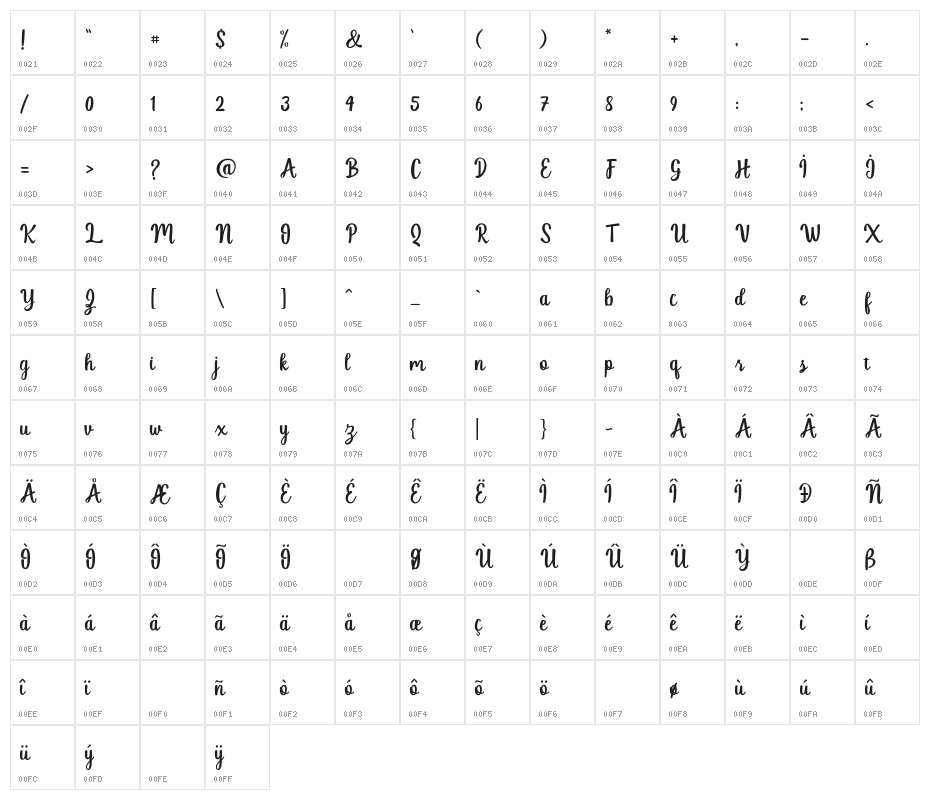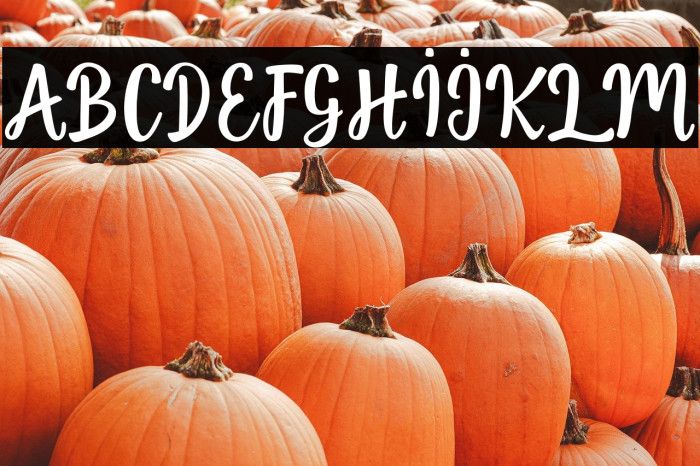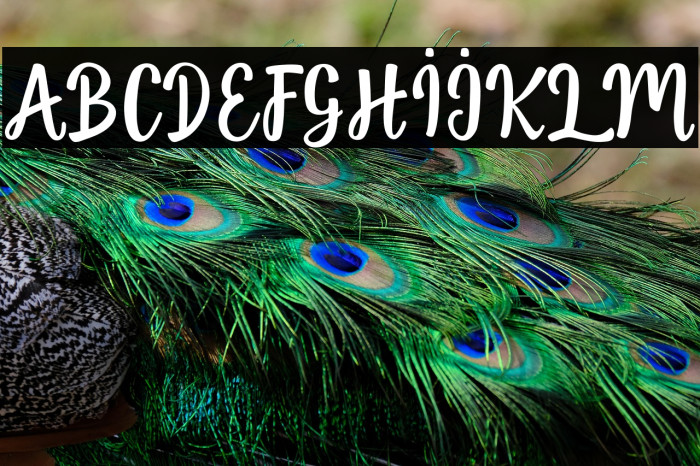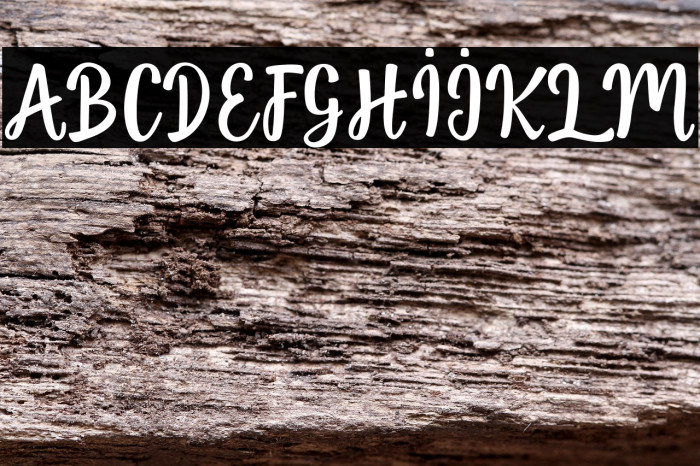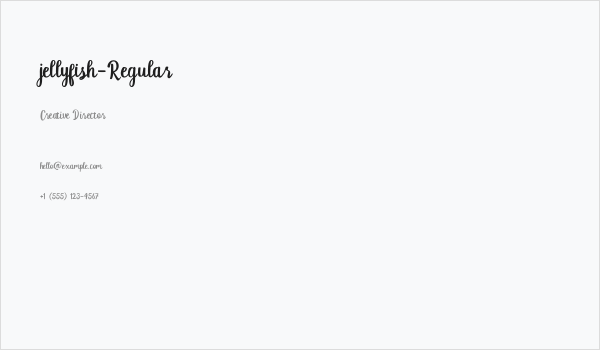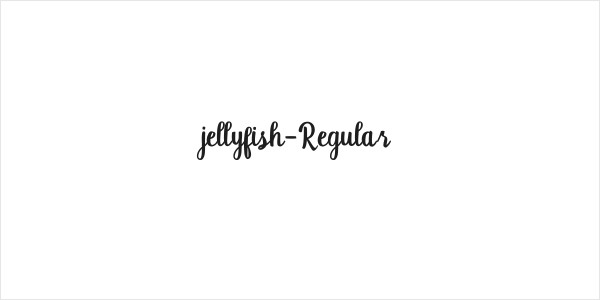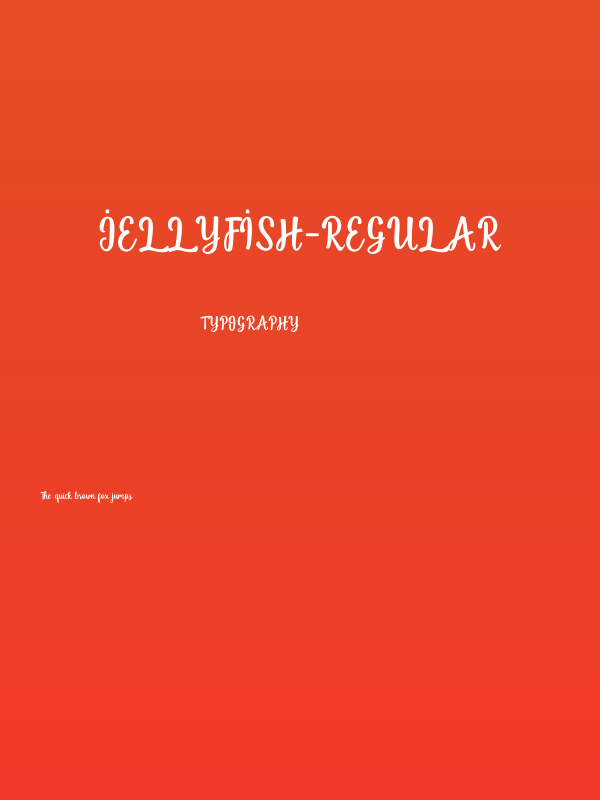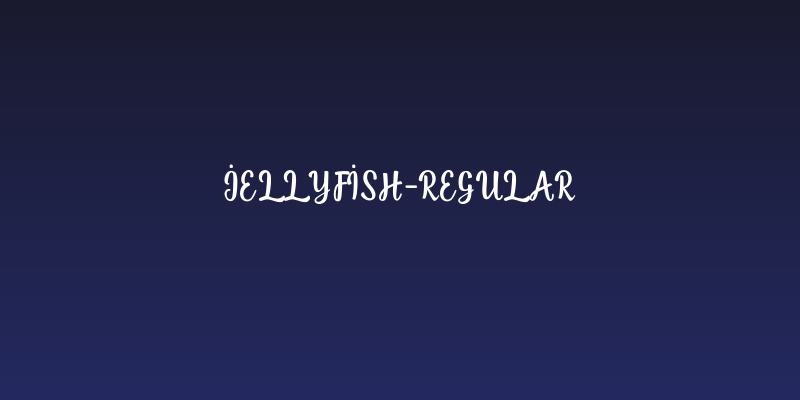
jellyfish-Regular Font
jellyfish-Regular Description
This font features a playful and flowing script style, characterized by its smooth curves and elegant loops. The uppercase letters are bold and expressive, with a slight slant that adds a dynamic feel. The lowercase letters maintain a consistent flow, enhancing readability while preserving the font's whimsical nature. Numbers and special characters are designed to complement the overall aesthetic, ensuring a cohesive look across different uses. The font's unique charm makes it suitable for creative projects that require a touch of personality and flair.
Use CaseLogos, Invitations, Greeting cards
Proposed ProjectsIdeal for invitations, greeting cards, branding, and creative design projects.